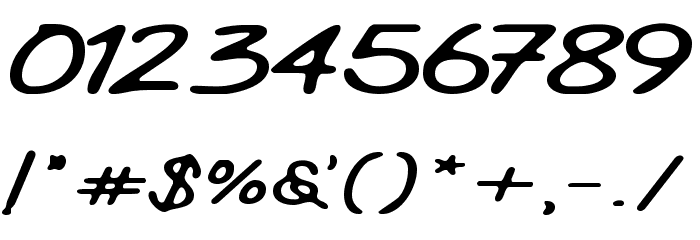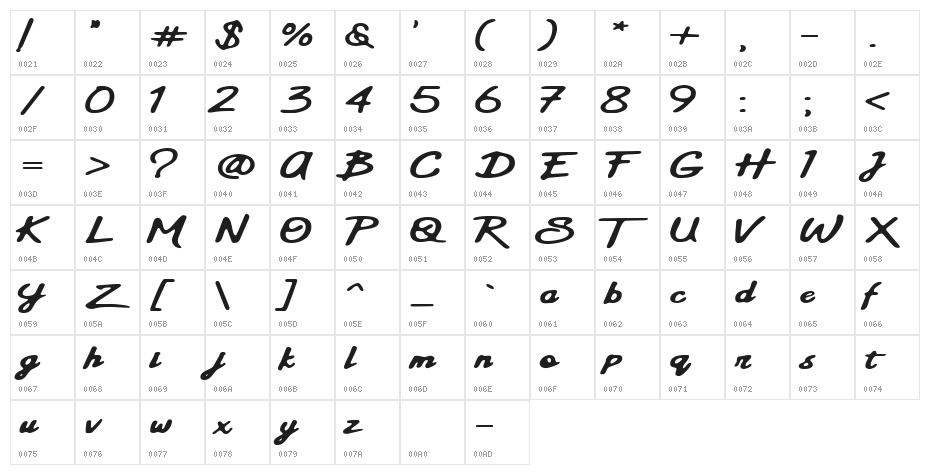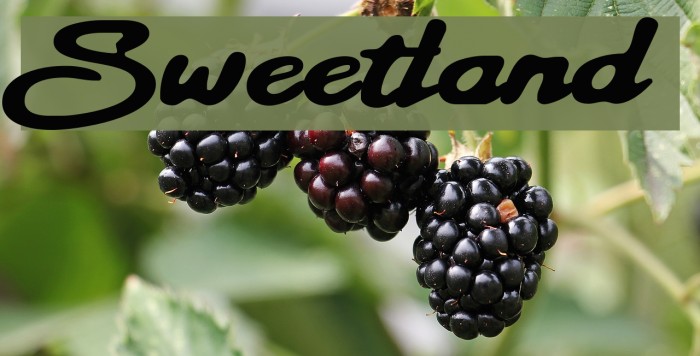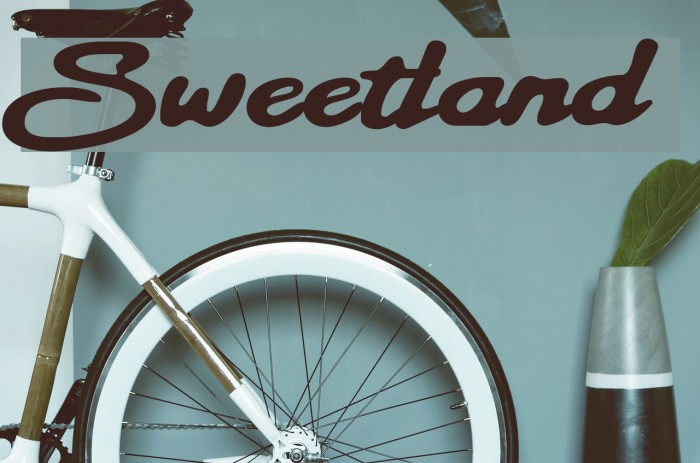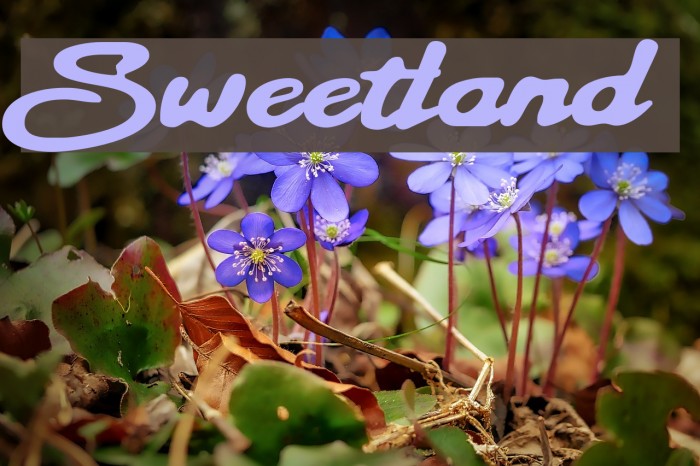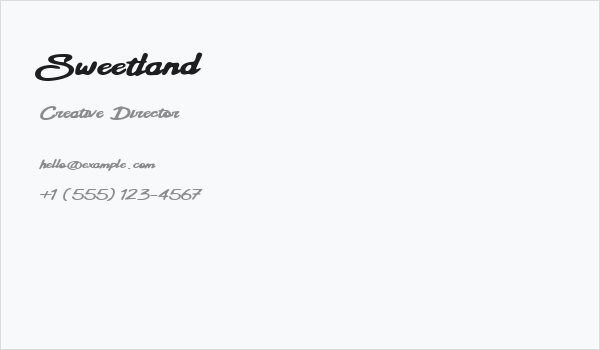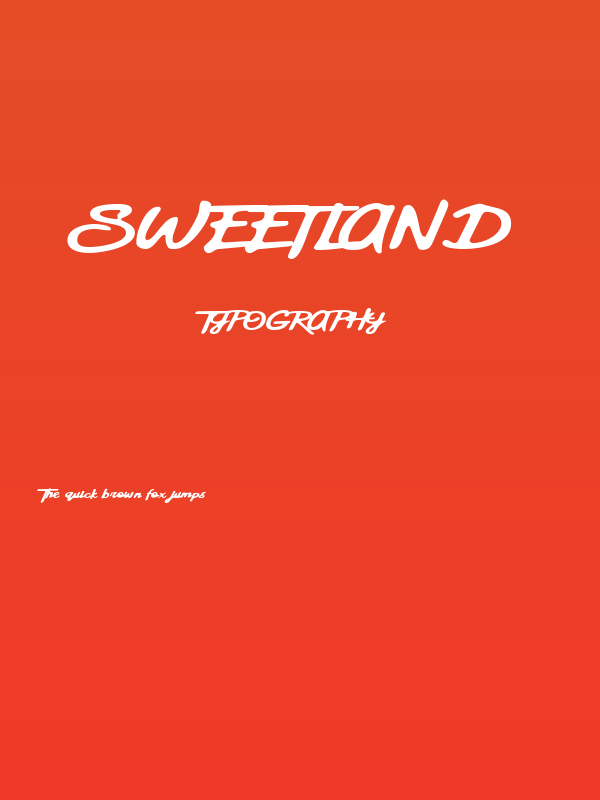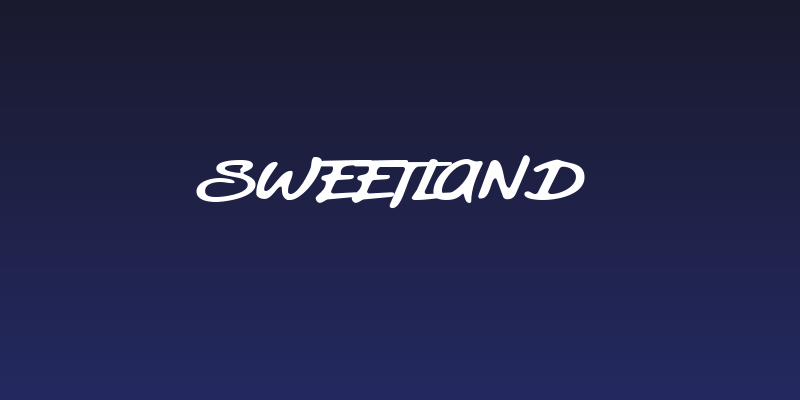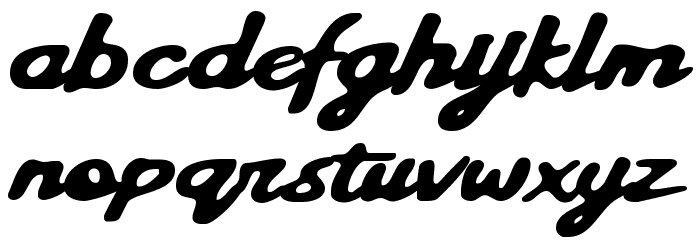
Sweetland Font
Sweetland Description
This font features a bold, cursive style with smooth, flowing lines that create a sense of elegance and fluidity. The characters are closely connected, giving it a handwritten appearance. The uppercase letters are slightly larger and more pronounced, while the lowercase letters maintain a consistent flow. Numbers and special characters are designed to match the overall aesthetic, ensuring uniformity across all elements. The font's boldness adds a strong visual impact, making it suitable for attention-grabbing designs.
| Proposed Projects | Ideal for wedding invitations, greeting cards, branding projects, and logo design. |